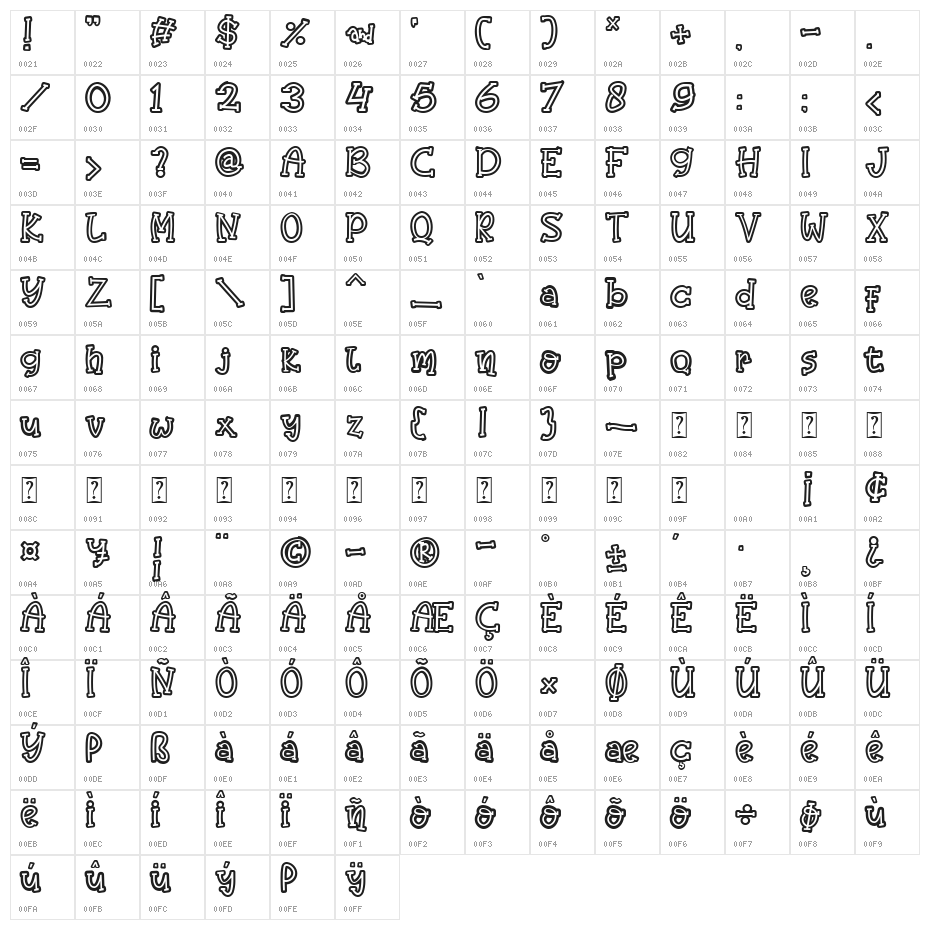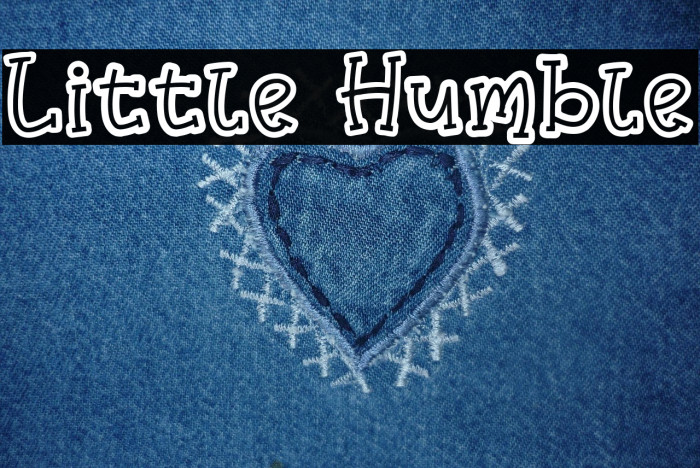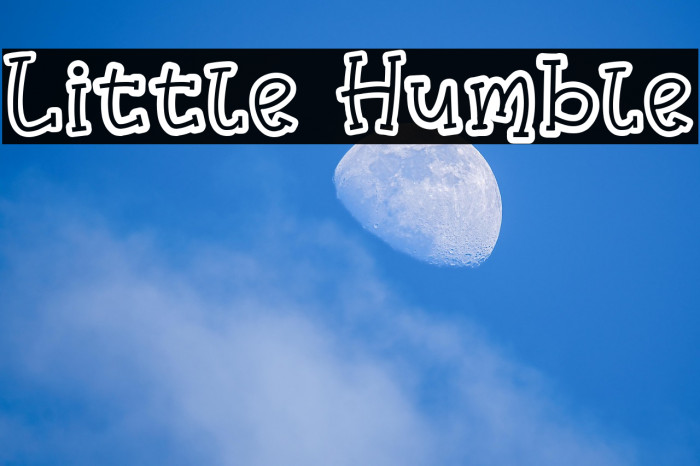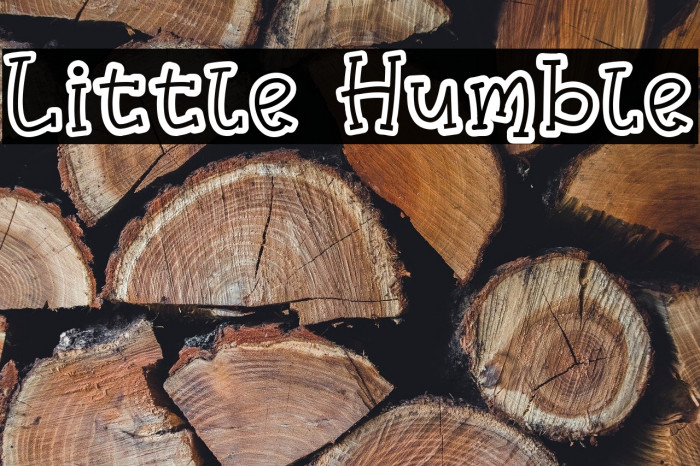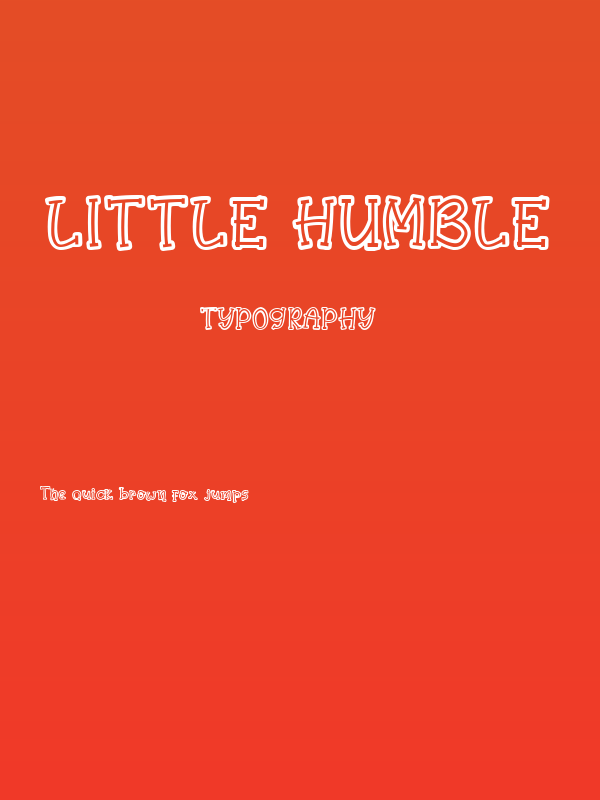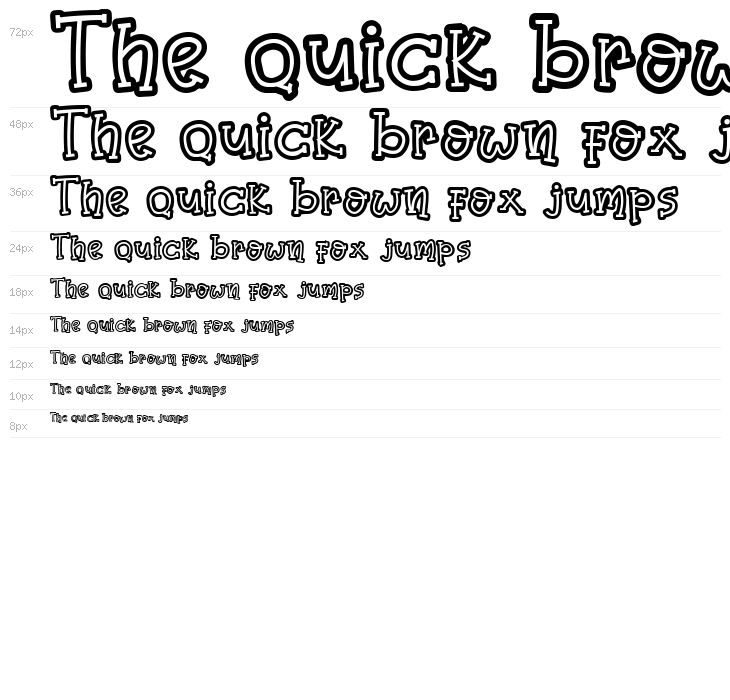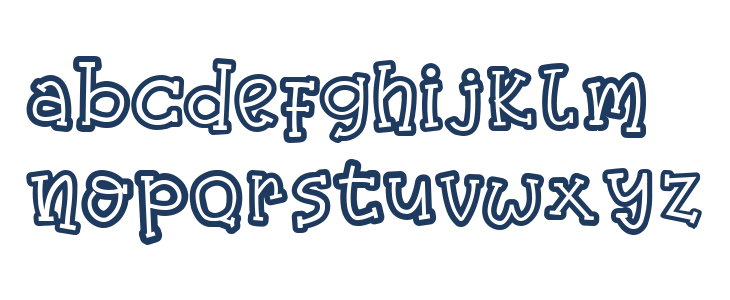
Little Humble Font
Little Humble Description
This playful and whimsical font features a bold, hand-drawn style with an outline effect that gives it a cartoonish and fun appearance. The characters are slightly irregular, adding to the casual and informal feel. The uppercase and lowercase letters maintain a consistent style, with rounded edges and a slight tilt that enhances the dynamic look. Numbers and special characters are designed to match the overall playful theme, making this font suitable for creative and lighthearted projects.
| Proposed Projects | Ideal for children's books, comic strips, playful branding, and party invitations. |